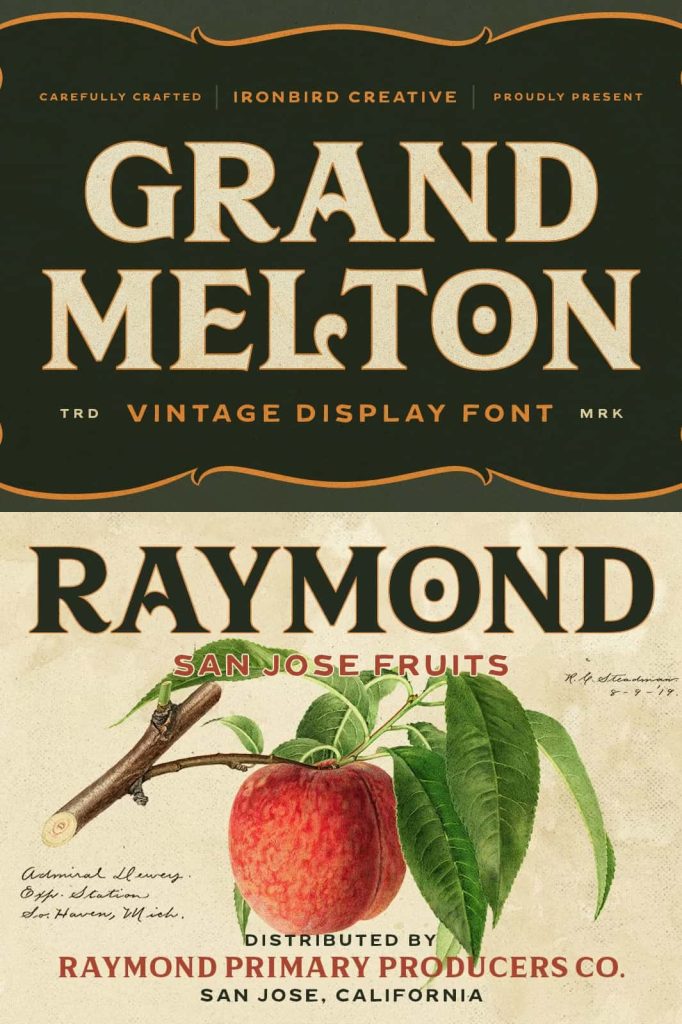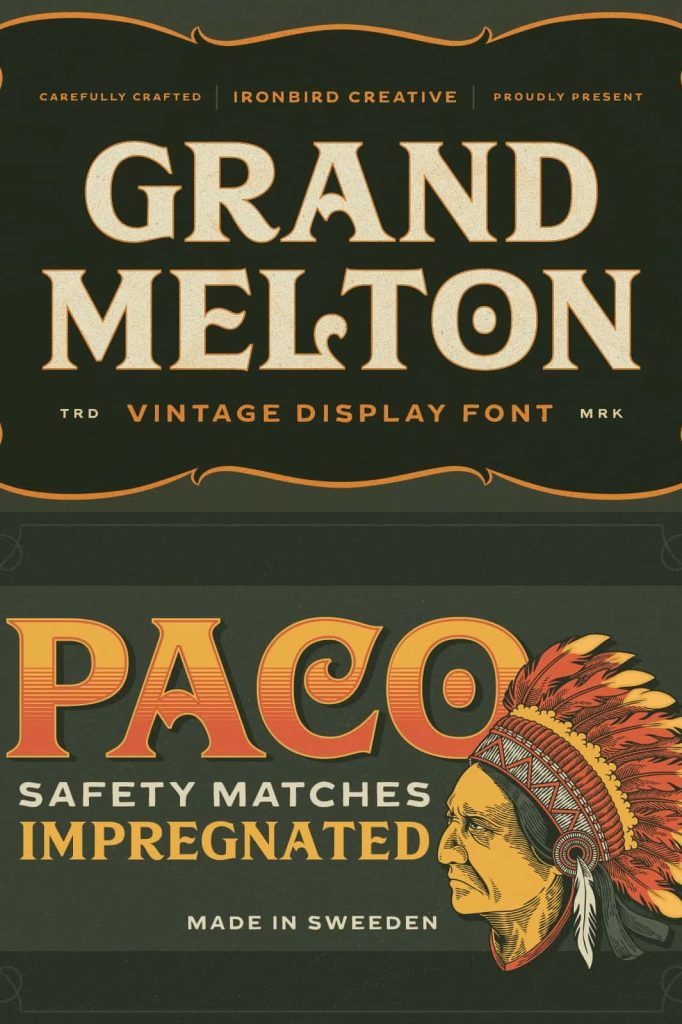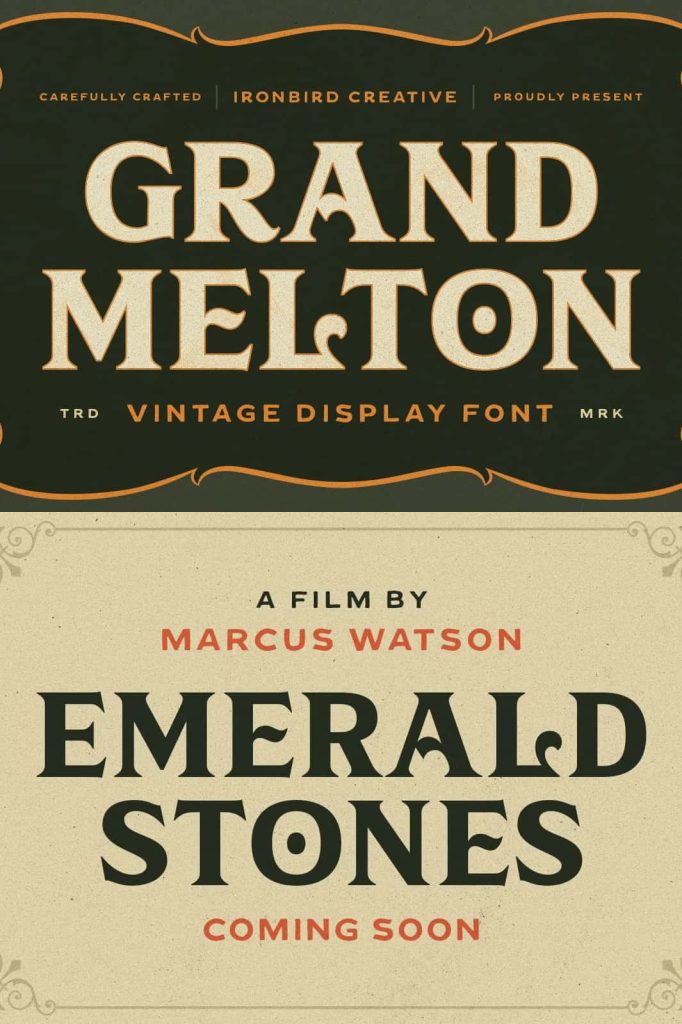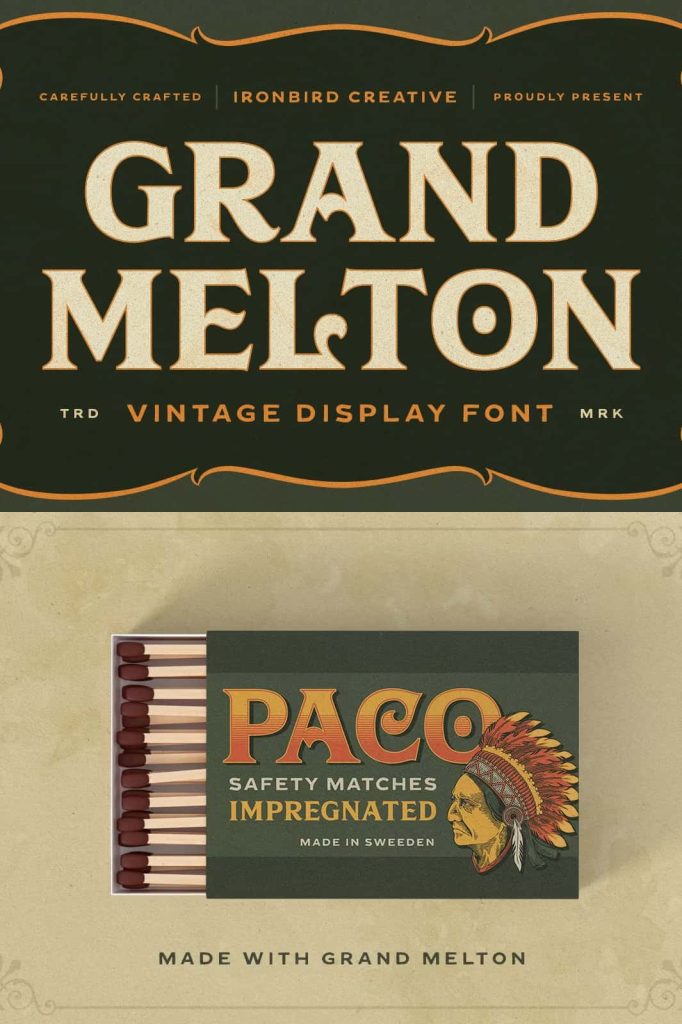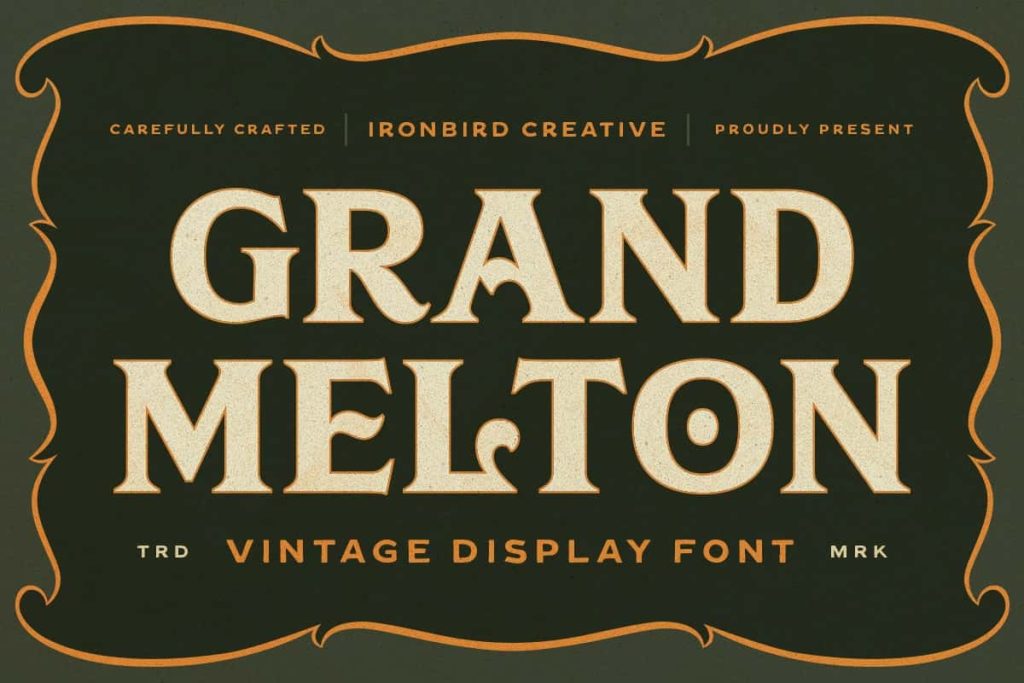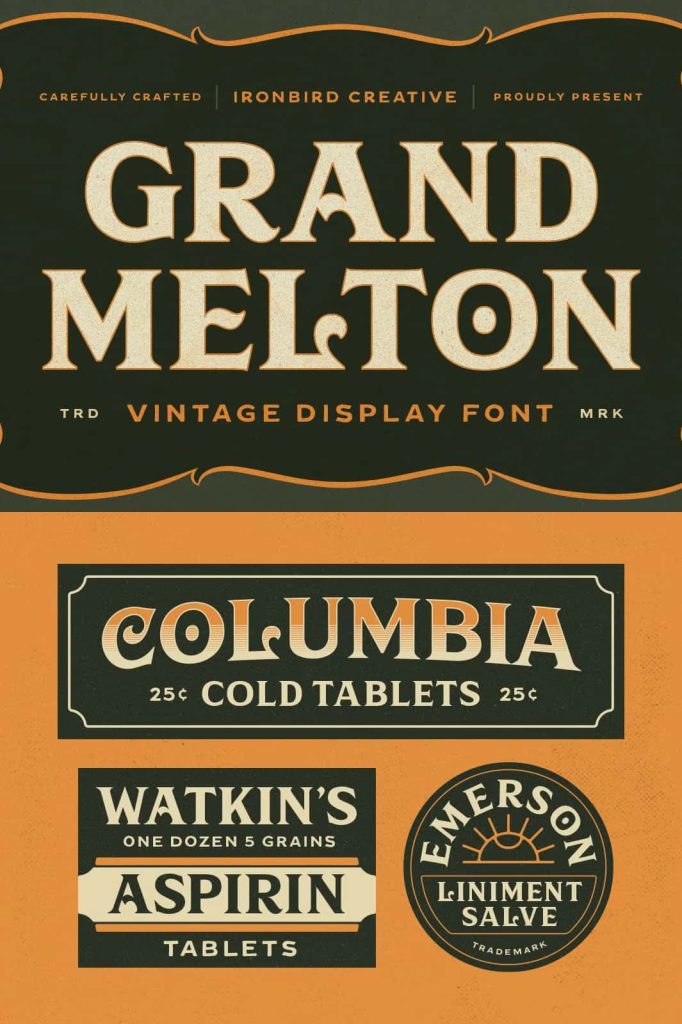
IC Grand Melton Typeface: A Powerful Vintage Display Font for Bold Designs
The IC Grand Melton typeface delivers a striking fusion of vintage charm and modern craftsmanship. Designed to capture the essence of classic typography, this display font stands out through its strong presence, elegant detailing, and commanding letterforms. IC Grand Melton is crafted with precision, bringing a nostalgic yet polished aesthetic that instantly elevates any design project. If you seek a typeface that expresses confidence, character, and timeless appeal, IC Grand Melton offers the perfect solution.
A Vintage-Inspired Typeface with Strong Character
Inspired by traditional lettering styles, IC Grand Melton embraces the aesthetic of historic signage, retro posters, and old-world print layouts. Its bold construction makes every character impactful, while its refined contours ensure clarity and readability. The combination of vintage influences and modern execution gives the typeface a dynamic personality that resonates across both classic and contemporary design themes. Whether you want to evoke nostalgia or create a standout visual identity, IC Grand Melton helps you achieve that effect effortlessly.
Crafted for Designers Who Love Retro Aesthetics
IC Grand Melton was created for those who appreciate the richness of vintage design. Each letter is carefully shaped to reflect heritage typography while offering flexibility for modern applications. This attention to detail results in a typeface that communicates authenticity and strength. Designers who want to build layouts with a retro flair will find IC Grand Melton exceptionally reliable and visually engaging. The font conveys a sense of craftsmanship that connects your audience to the timeless appeal of classic design.
Perfect for Branding, Logos, Posters, Apparel, and More
With its commanding presence, IC Grand Melton excels in display-focused applications. Its bold and expressive style makes it ideal for branding projects that aim to establish a strong identity. Logos become more memorable with its vintage-inspired shapes, while merchandise such as t-shirts and apparel gain a distinctive personality. Posters, banners, and printed promotional materials benefit from its high readability and visual impact. IC Grand Melton also enhances quotes and editorial headlines by transforming simple text into attention-grabbing statements.
Enhance Your Graphic Designs with Timeless Appeal
The versatility of IC Grand Melton makes it suitable for a wide range of creative fields. Whether you are designing packaging for retro-themed products, crafting artisan-style branding materials, or developing eye-catching visual merchandise, this typeface brings consistency and charm to your work. Its strong strokes, balanced structure, and refined curves ensure that your designs remain cohesive while still projecting bold individuality. IC Grand Melton supports creativity by helping your designs stand out with elegance and authority.
A Display Typeface That Elevates Every Creative Project
IC Grand Melton is more than a typeface; it is a design tool that enhances storytelling through typography. It establishes mood, reinforces theme, and adds visual depth to every composition. The font’s vintage roots blend seamlessly with modern precision, making it adaptable across various artistic directions. Designers can rely on IC Grand Melton to bring character and visual energy into projects that require memorable and expressive typography.
Embrace the power of IC Grand Melton and introduce a classic yet bold aesthetic into your branding, apparel, posters, and graphic designs. This typeface ensures your work commands attention while maintaining timeless style.